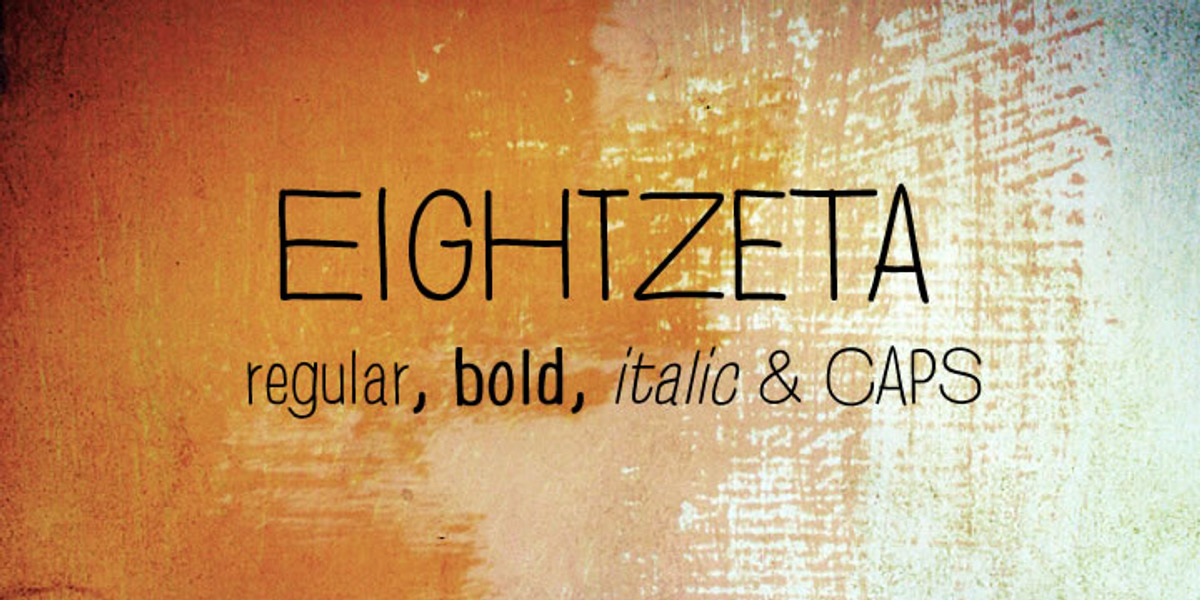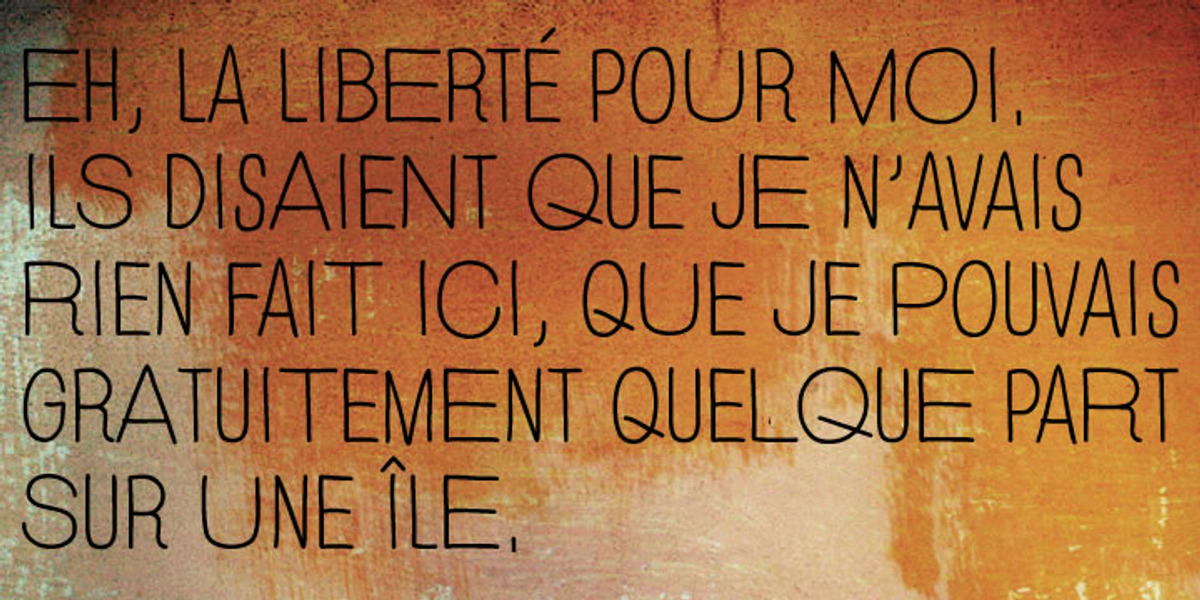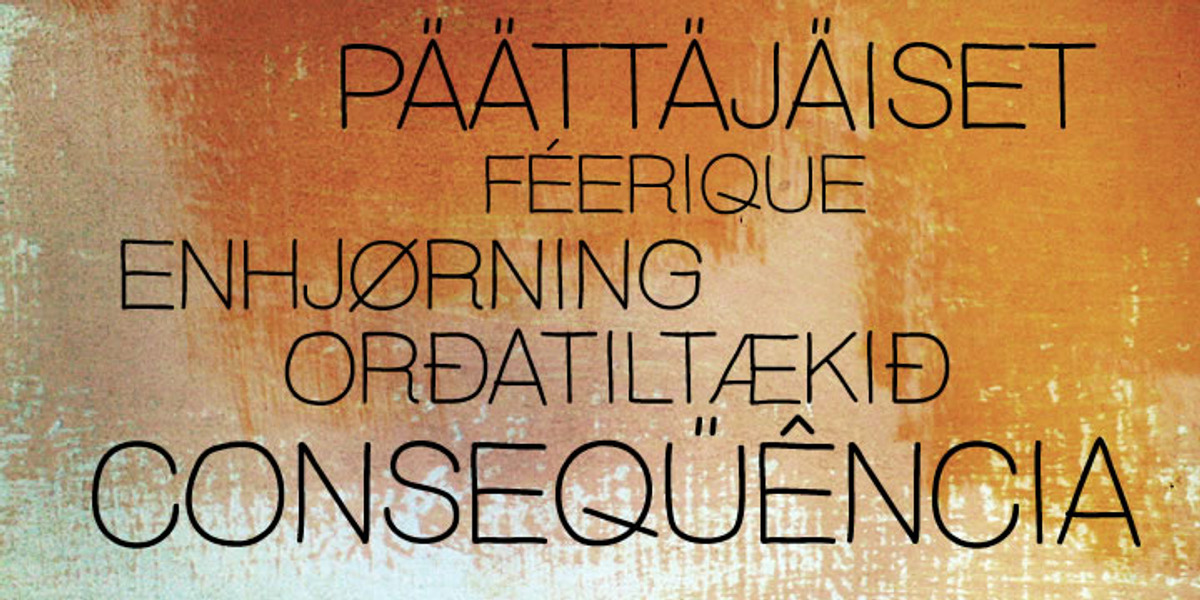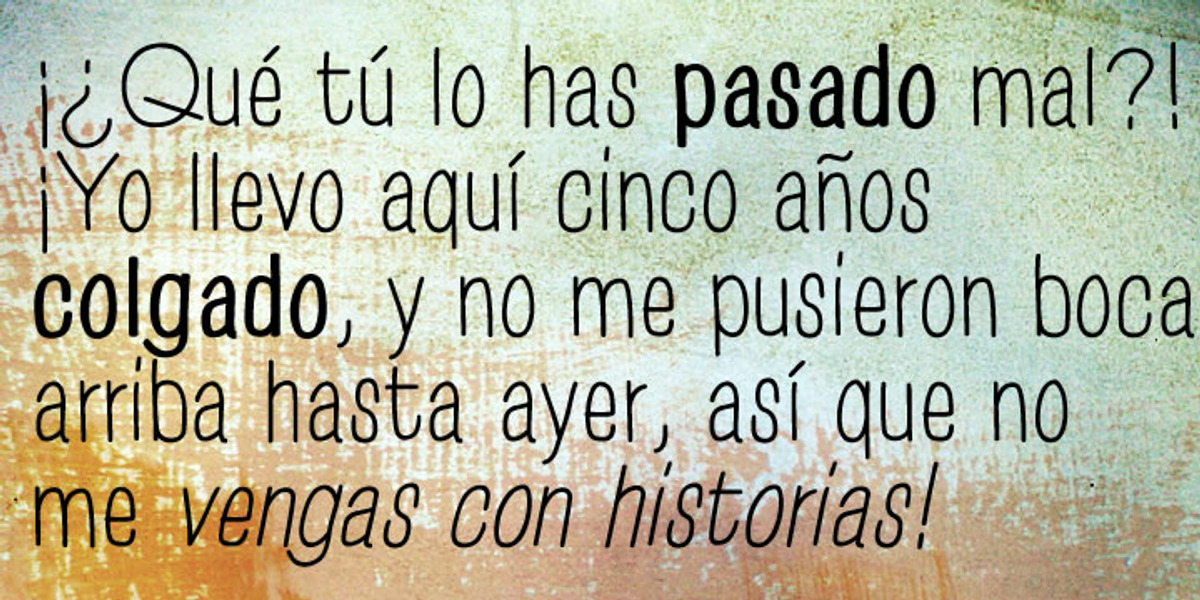
EightZeta
EightZeta is a hand-drawn display font designed by Bartek Nowak. Its playful style and all-caps format make it suitable for invitations, greeting cards, posters, and advertising. The font supports a wide range of languages, including Western, Central and Eastern European, Baltic, and Turkish.